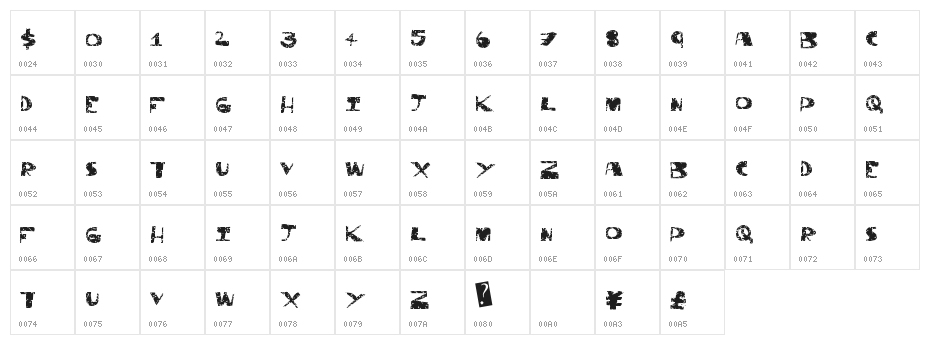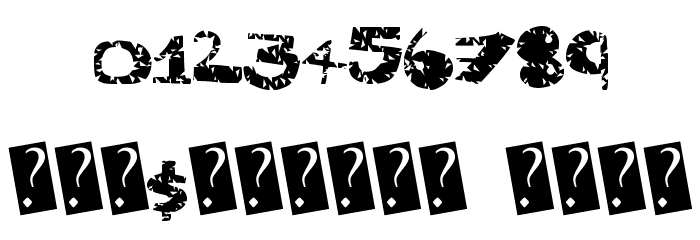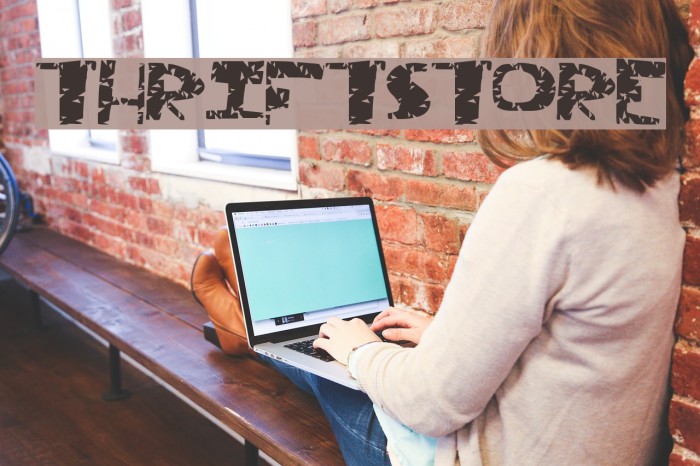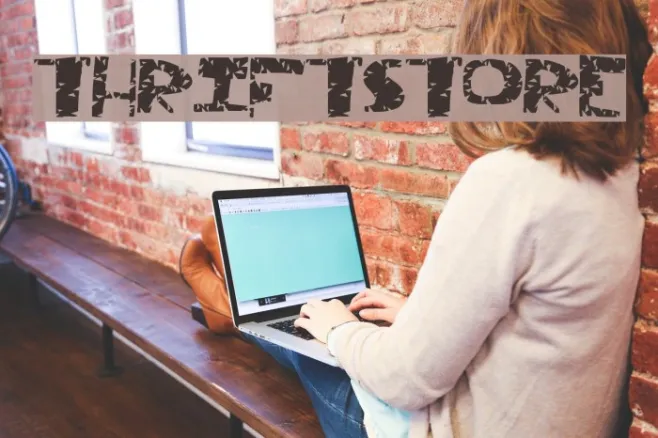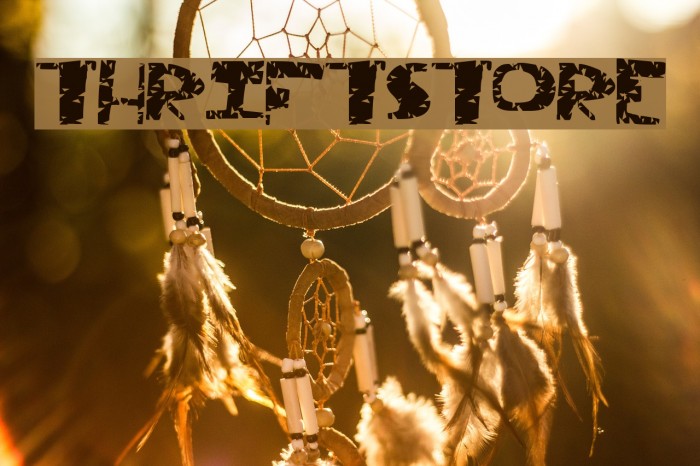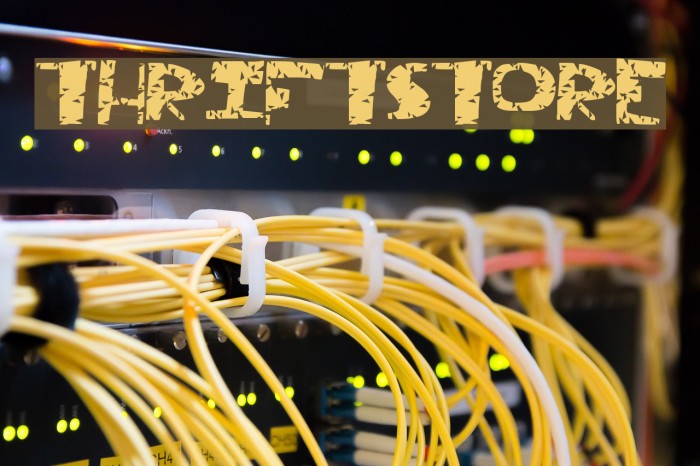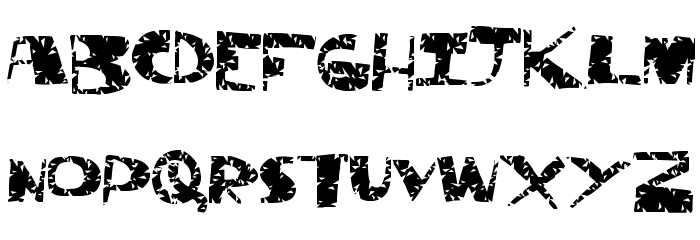
ThriftStore Font
ThriftStore Description
This font features a distressed, grunge style with a bold and impactful appearance. The characters are heavily textured, giving them a worn and rugged look, reminiscent of vintage or industrial aesthetics. The uppercase and lowercase letters maintain a consistent style, with jagged edges and irregular shapes that add to the overall chaotic feel. Numbers and special characters follow the same design, ensuring uniformity across all glyphs. This font is ideal for projects that require a raw, edgy vibe, such as music album covers, posters, or urban-themed designs. Its unique style makes it stand out, capturing attention with its bold and unconventional appearance.
| Overall Style | Grunge, Vintage |
| Proposed Projects | Ideal for music album covers, posters, urban-themed designs, and any project needing a raw, edgy vibe. |